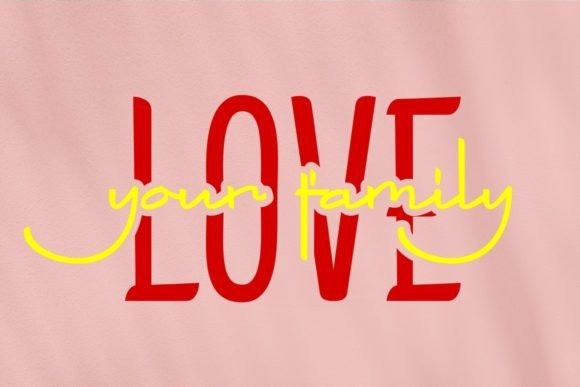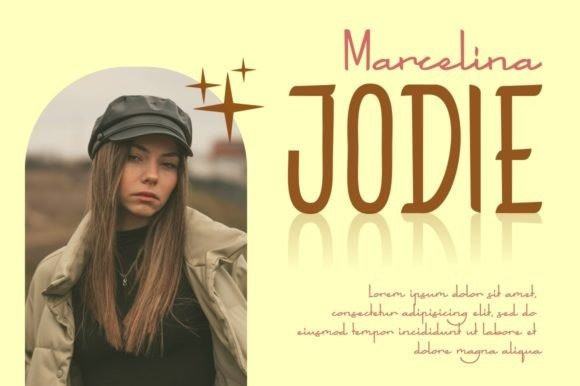
Mark Quincy Font
Mark Quincy Font is a beautiful handwritten font ideal for logos, wedding stationery, photography watermarks, modern websites, and more. Fall in love with its incredibly distinct and timeless style, and use it to create spectacular designs!
Fall for its ravishing style and use it to create gorgeous wedding invitations, beautiful stationary art, eye-catching social media posts, and much more!